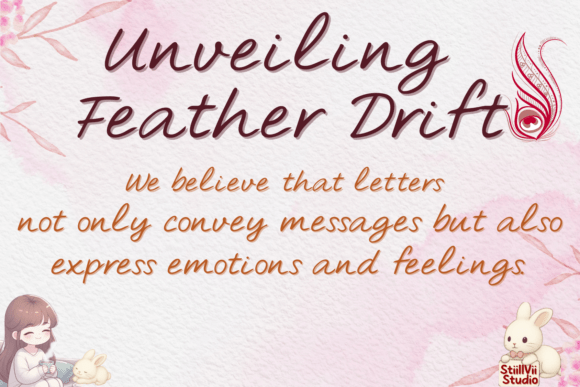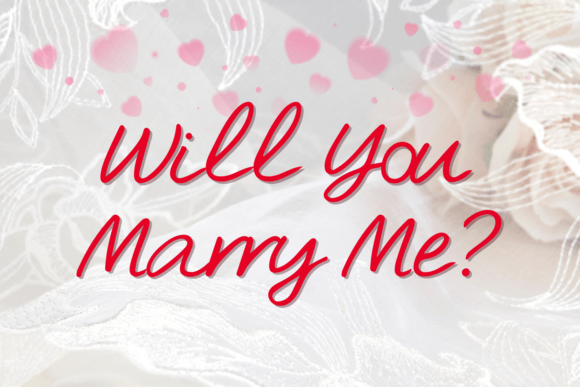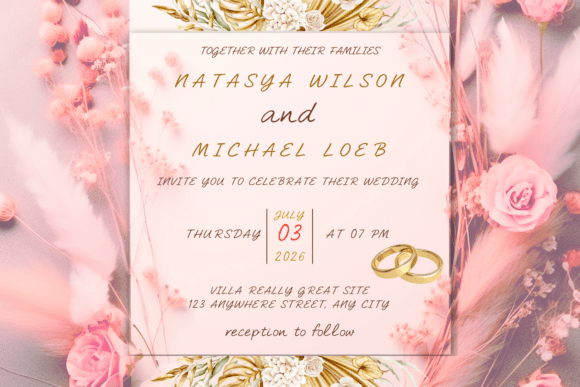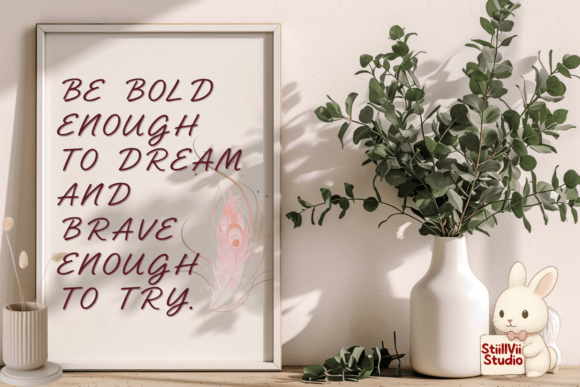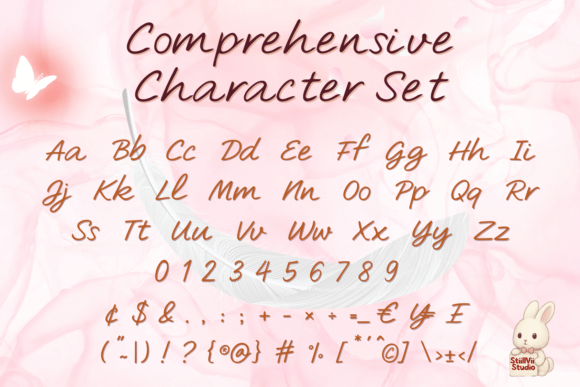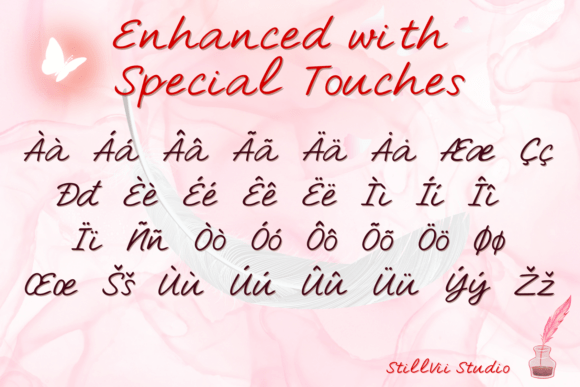
Let Your Words Float Like a Feather on the Breeze: Discover the Elegance of Feather Drift Font
Imagine the gentle movement of a feather drifting through the air, its delicate form dancing on the breeze. Now, envision capturing that same sense of effortless elegance in your designs. Welcome to Feather Drift, a beautiful handwriting script font that embodies the romance and sophistication of a bygone era. In this article, we’ll explore the unique characteristics of Feather Drift and why it’s the perfect choice for designers and crafters looking to add a touch of whimsy and refinement to their work.
Why Feather Drift Script Font is Special?
Feather Drift is more than just a font – it’s an experience. With its fluid strokes and natural rhythm, this gorgeous handwriting script font is sure to captivate your audience and leave a lasting impression. Here are just a few reasons why Feather Drift stands out:
- Romantic Aesthetic: Feather Drift is ideal for love letters, proposals, and wedding stationery. Its elegant, cursive script is sure to make your designs feel like a treasured keepsake.
- Natural Flow: This font mimics the look of real hand-lettering with a calligraphy pen, giving your designs a personal, human touch.
- Versatile Elegance: Feather Drift looks stunning on product packaging, social media quotes, and wall art. Its versatility makes it the perfect choice for a wide range of design applications.
- Multilingual Support: With accented characters for international languages, Feather Drift is the perfect choice for designers working on global projects.
Perfect For: A World of Creative Possibilities
Feather Drift is a versatile font that can be used in a variety of design applications. Here are some of the perfect use cases for this beautiful font:
- Wedding Invitations & Stationery: Add a touch of romance and elegance to your wedding designs with Feather Drift.
- Feminine Branding & Logos: Create a sophisticated and feminine brand identity with Feather Drift.
- Inspirational Quotes & Posters: Make your inspirational quotes and posters stand out with the elegant script of Feather Drift.
- Greeting Cards & Gift Tags: Add a personal touch to your greeting cards and gift tags with Feather Drift.
- Social Media Graphics (Instagram/Pinterest): Elevate your social media graphics with the beautiful, cursive script of Feather Drift.
Designing with Feather Drift: Tips and Tricks
To get the most out of Feather Drift, here are some design tips and tricks to keep in mind:
- Pair with contrasting fonts: Pair Feather Drift with a clean, sans-serif font to create visual interest and contrast.
- Experiment with colors: Try pairing Feather Drift with pastel colors or metallic ink to add a touch of luxury to your designs.
- Play with texture: Add texture to your designs by layering Feather Drift over a background image or texture.
Feather Drift is a beautiful handwriting script font that captures the essence of romance and elegance. With its fluid strokes, natural rhythm, and versatile design, it’s the perfect choice for designers and crafters looking to add a touch of whimsy and refinement to their work. Whether you’re designing wedding invitations, branding materials, or social media graphics, Feather Drift is sure to make your designs float like a feather on the breeze.